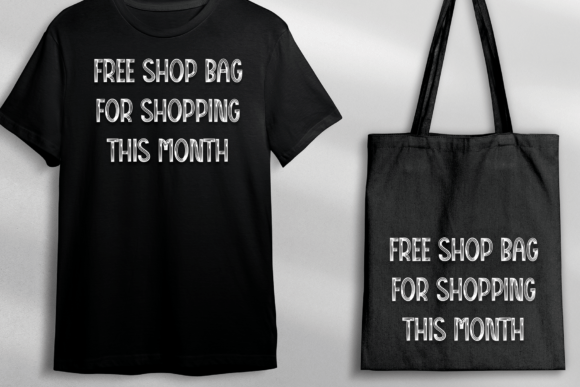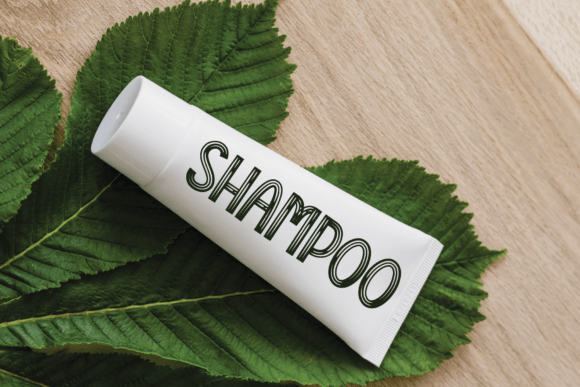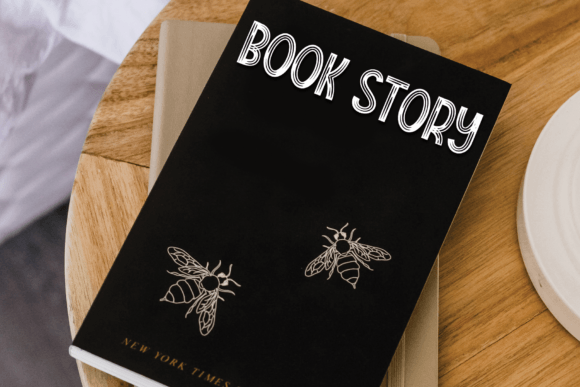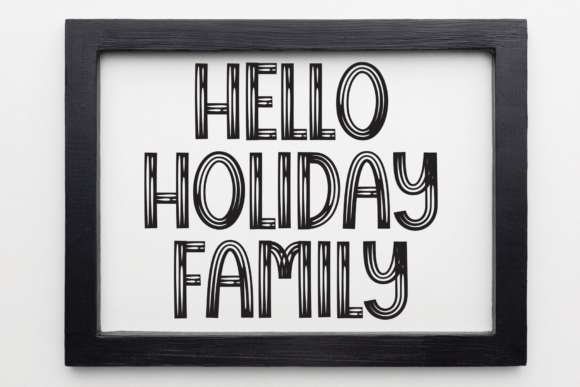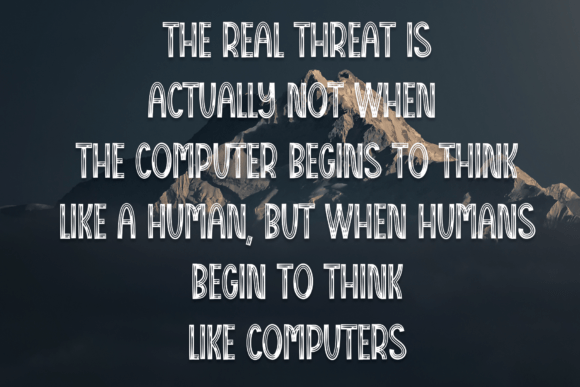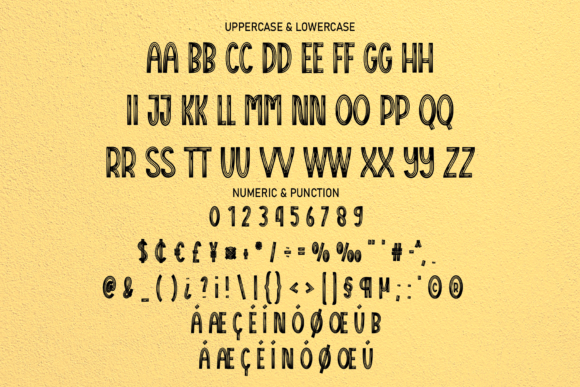
Introduction to Order Online Font
Have you ever stumbled upon a beautifully designed social media post that stopped you in your tracks? For designers, it’s moments like these that spark inspiration and fuel our passion for creating stunning visuals. One of the key elements that sets these designs apart is the use of a unique and high-quality font. Enter the Order Online Font, a sans-serif font that’s perfect for elevating your creative projects to the next level.
This versatile font is not only stylish but also incredibly versatile, making it a valuable design resource for any project that requires modern typography. From wedding invitations to product packaging, the Order Online Font is the perfect choice for designers who want to add a touch of sophistication and elegance to their work.
Key Features of Order Online Font
- High-quality font with a transparent background, perfect for creative projects that require a clean and minimalist design.
- Unique characteristic: the font features a modern and sleek design, making it ideal for use in logos, branding materials, and digital signage.
- Designed to be versatile, Order Online Font can be used in various design projects, from print materials to web design, and even in video editing.
- Transparent background allows for easy layering and customization, making it a valuable design resource for creative professionals.
Honest Review: Order Online Font
As a designer, I’ve had the chance to work with various fonts, and I must say that Order Online Font has been a game-changer for my creative projects. The font’s high quality and modern design make it a great addition to any design resource.
One of the things that stands out about Order Online Font is its versatility. It’s perfect for a variety of creative projects, from digital design to print materials. The font’s transparent background makes it easy to use on any design surface, and the free download option is a bonus.
- ✨ High-quality design that’s perfect for modern creative projects
- ✨ Transparent background makes it easy to use on any design surface
However, I do have a few criticisms. The font’s character set is limited, and it’s not ideal for projects that require a wide range of characters.
- ⚠️ Limited character set may not be suitable for projects that require a wide range of characters
Overall, I’m impressed with Order Online Font, and I would definitely recommend it to fellow designers. It’s a great addition to any design resource, and its free download option makes it accessible to designers of all levels.
Order Online Font is commonly used for:
- Graphic design projects
- Website design